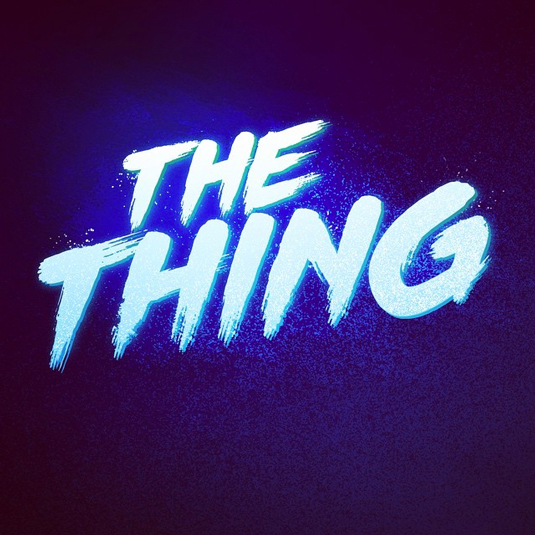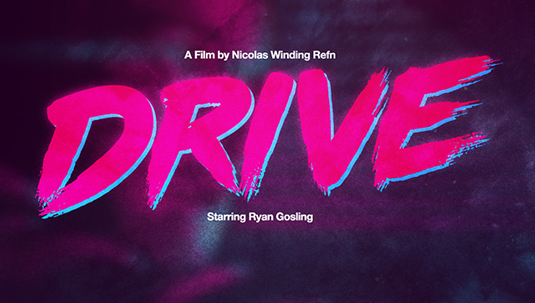
Font of the day: Neo-Noire
Every day we showcase the best fonts on the web. Today it's Neo-Noire by James White.
Neo-Noire by James White
Today's typeface of choice is Neo-Noire by visual artist James White. "I started using custom brush-80s lettering in my work around 3 years ago, and have constantly been getting the "What font is that?" question," White comments on his website.
"Truth is, the font never existed at all. I would create the letters in Illustrator from scratch each time, or re-use letters I already made. So after some time, I decided to develop the font and bring it to you for use in your work."